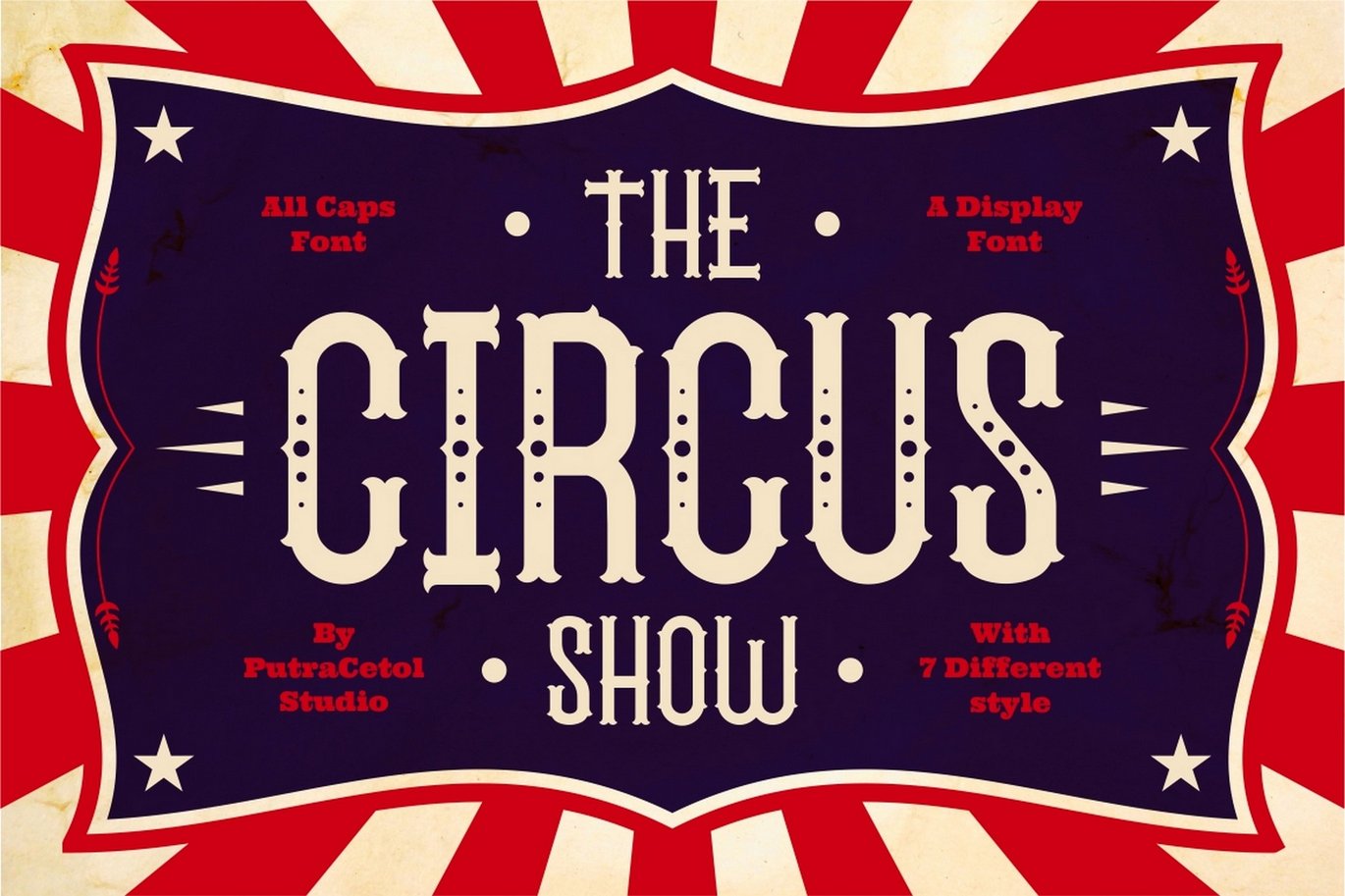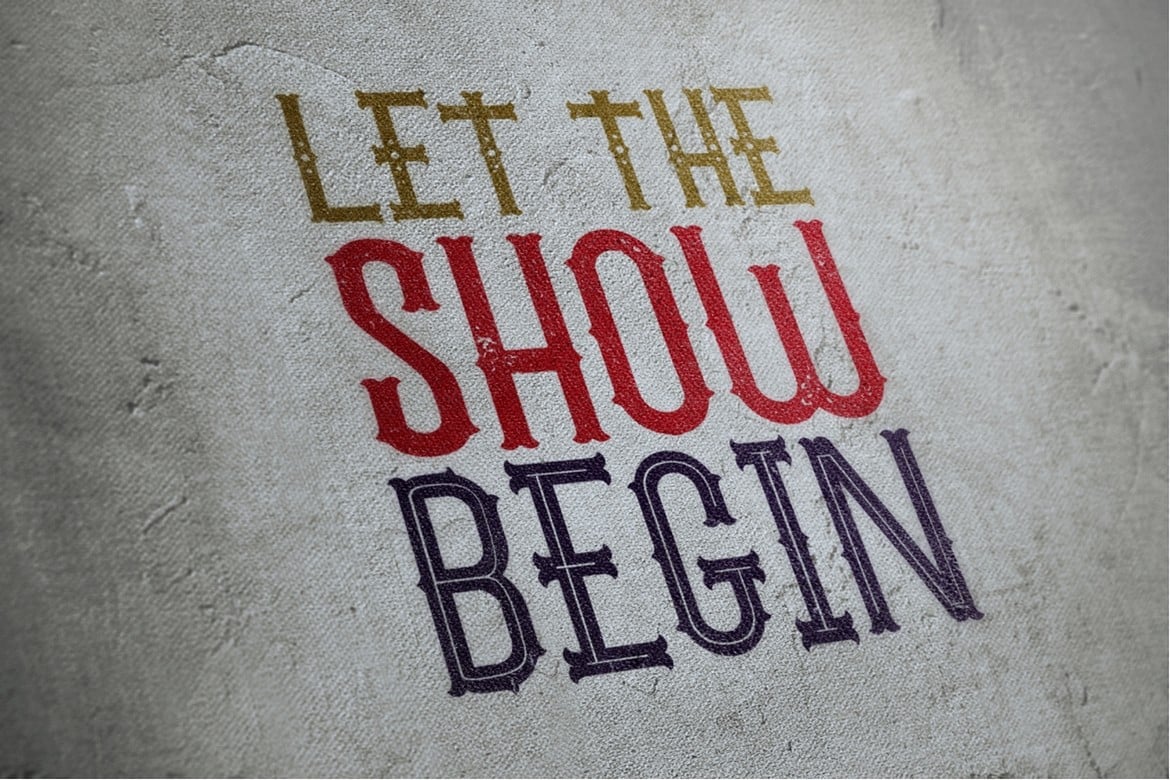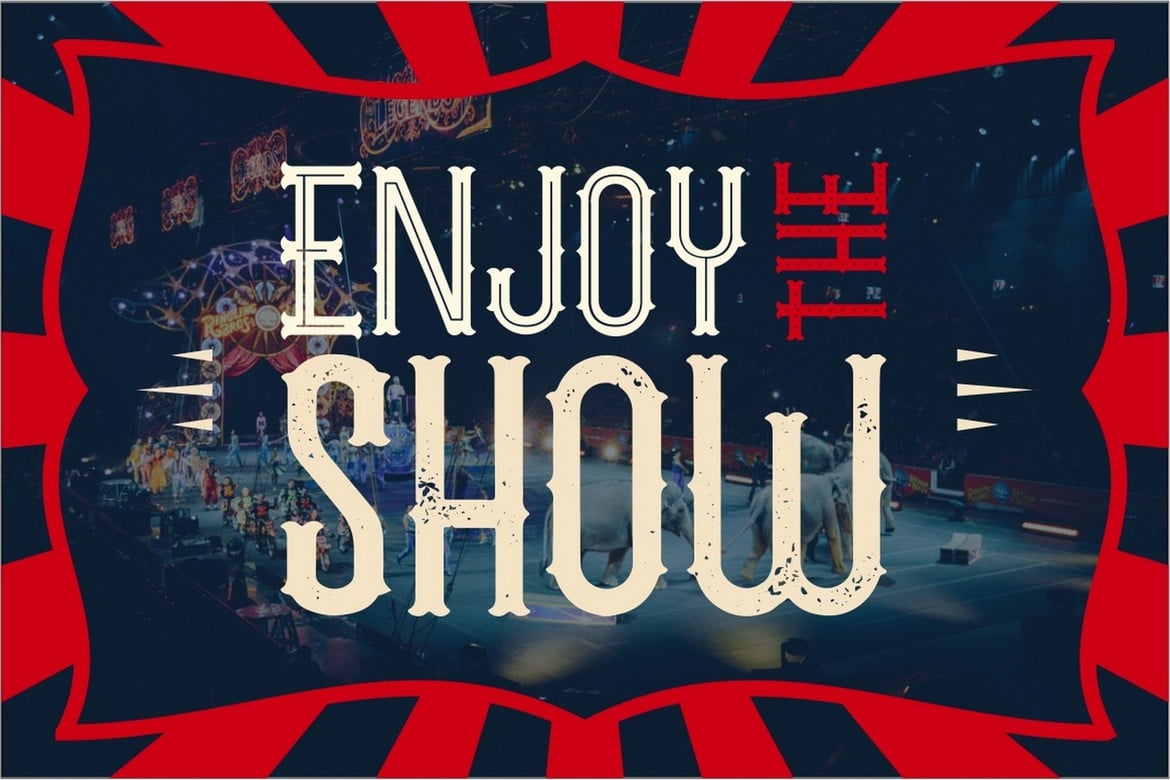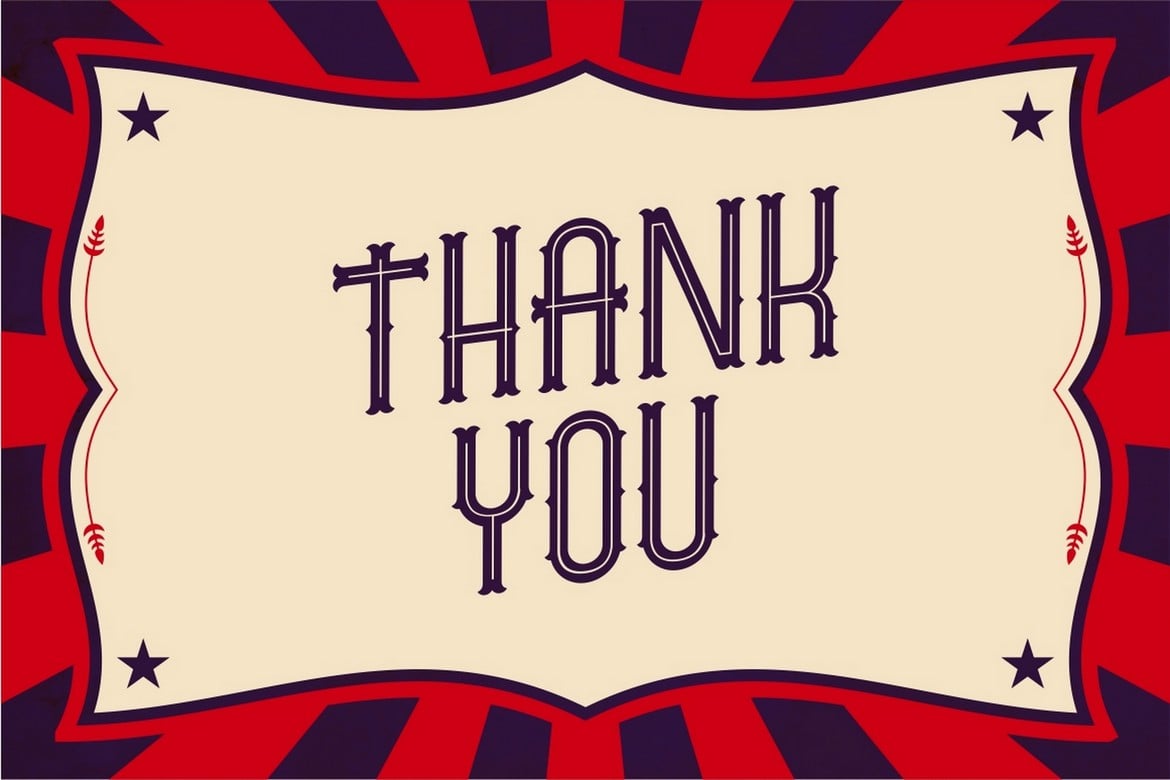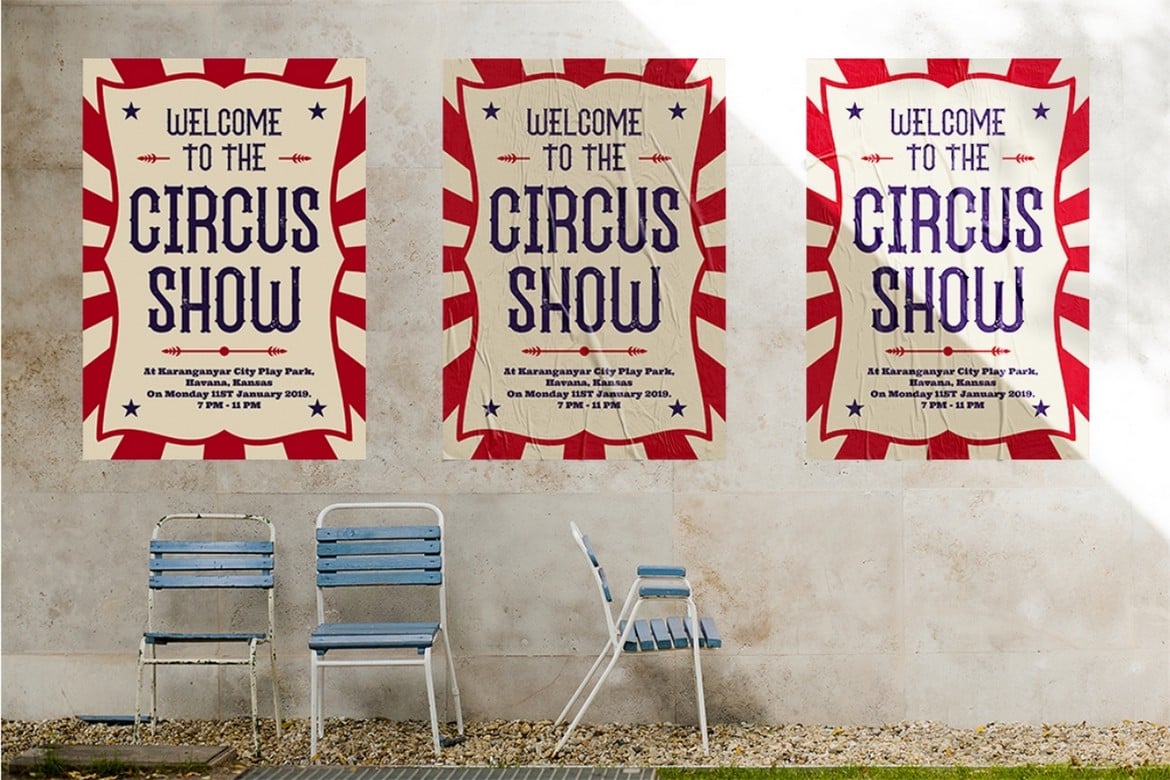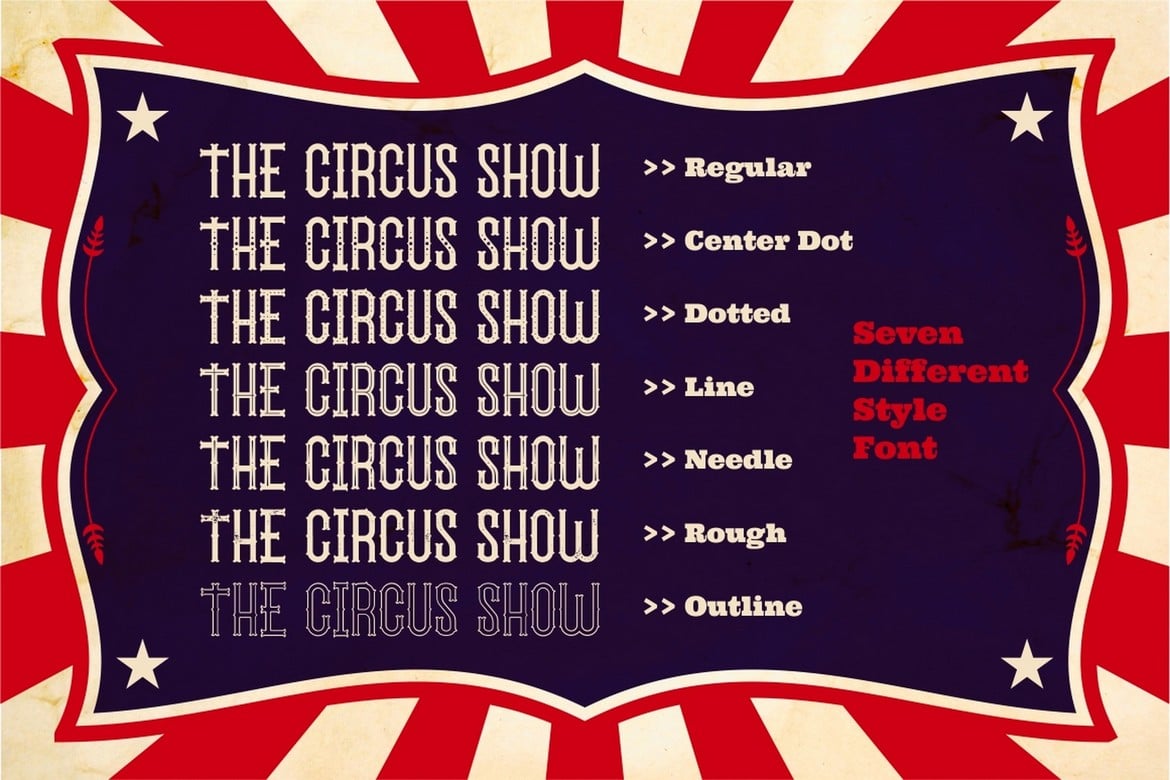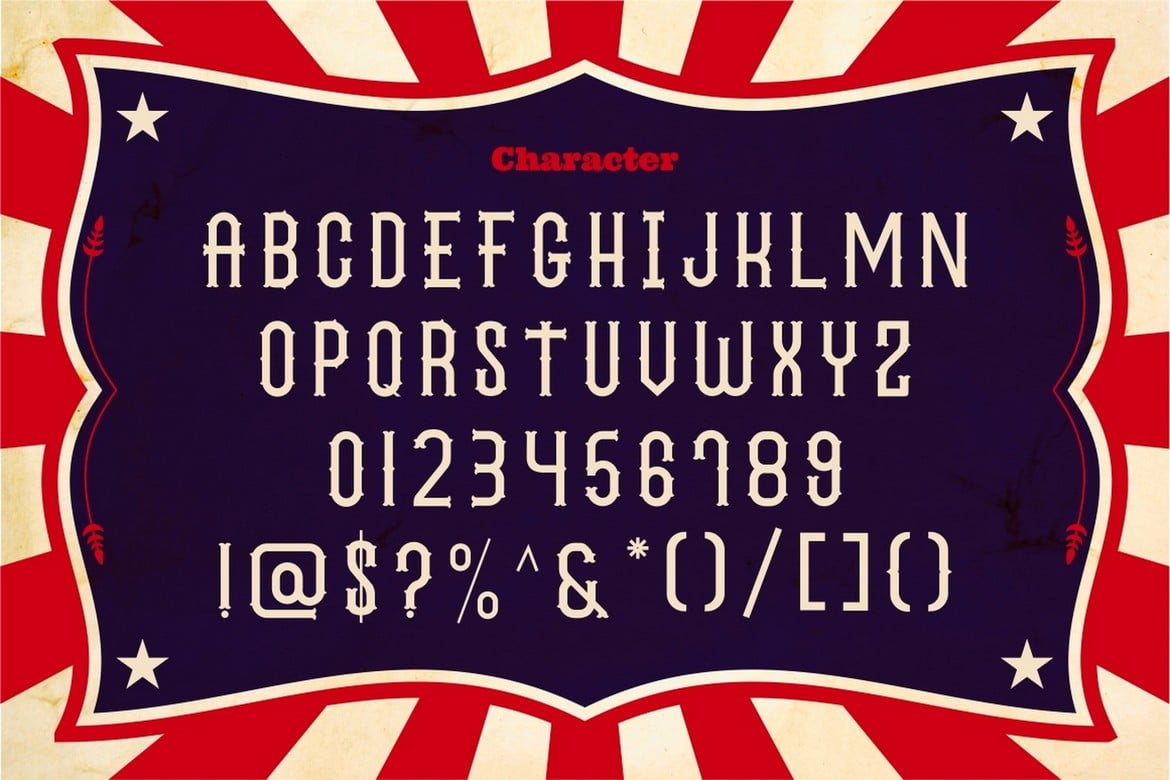
The Circus Show – Carnival Display Font
** The Circus Show **
Introducing a new Display Typeface called “The Circus Show”. Inspired from american circus, carnival typography and tatto from 80’s.
The Circus Show have 7 styles : Regular, Dot, Centerdot, line, Needle, Rough and Ouline.
The Circus Show best uses for Logotype, heading,cover, poster, logos, quotes, product packaging, header, merchandise, social media & greeting cards and many more.
** Comes with feature : **
- 7 Different Styles
- Number, Punctuation And Symbols